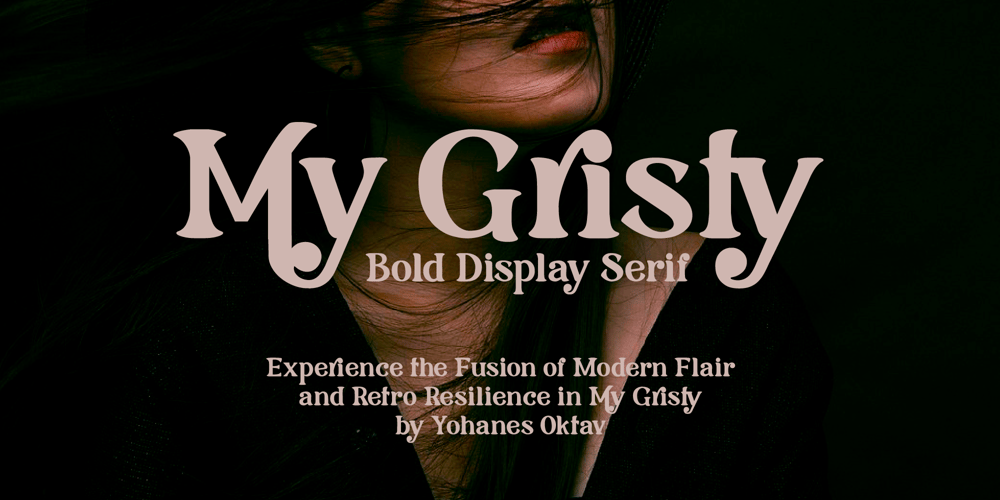
My Gristy Font Family was designed by Yohanes Oktavianus Aang and published by Yohanes Oktav. My Gristy contains 1 styles and family package options. Rediscover Classic Beauty font style with a Modern Edge taste in Serif Wonder: My Gristy. Catchy ligature upscaled your name into unique logotype. My Gristy also available with basic Latin multilingual. Bring your business to the brighter future with the soul of the timeless of the past era.